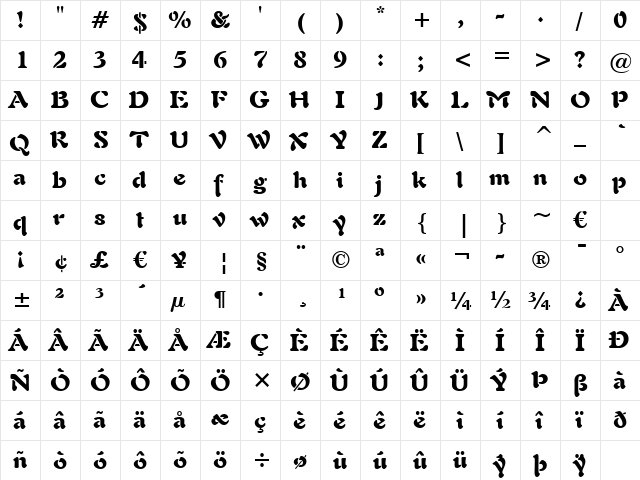
Freefrm721 Blk BT Black
Design Context for Freefrm721 Blk BT Typeface
Freefrm721 Blk BT is a composed and adaptable typeface that performs quietly and consistently across a wide range of design contexts.